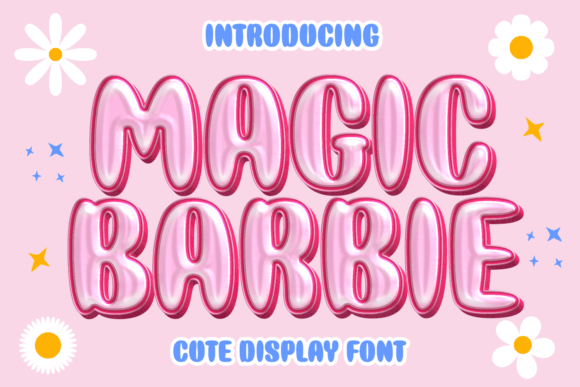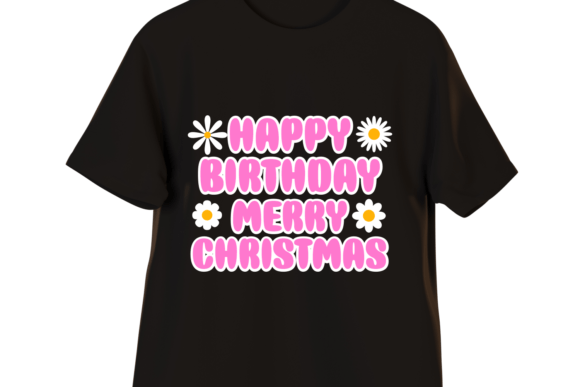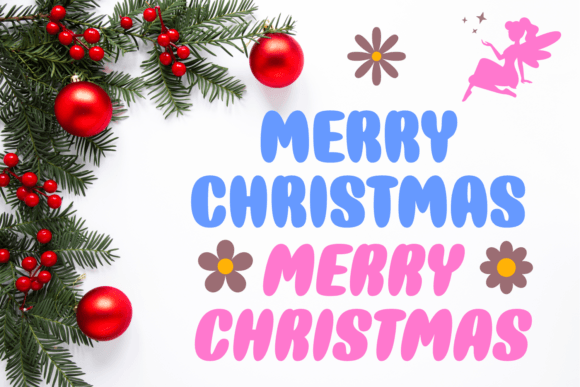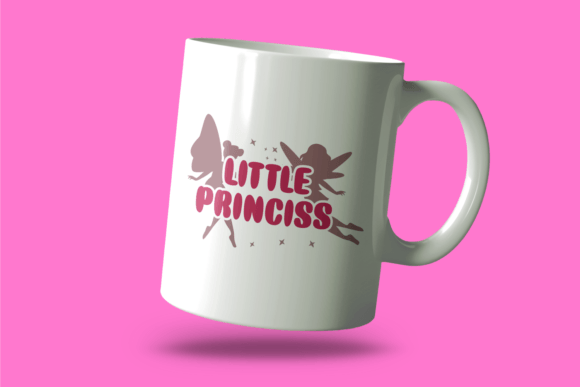
Magic Barbie Font: A Cute & Playful Display Font for Cricut
About the Magic Barbie Font
Meet Magic Barbie Font, a stunning font that brings a touch of elegance and professionalism to any design. Experience the versatility of the Magic Barbie font that embodies charm and playfulness. Perfect for a range of designs such as kids themes, retro designs, or wedding invites, these fonts exude a sense of comic relief and fun. Express affection with this font, ideal for Valentine’s greetings, Mother’s Day messages, or simply adding personal touch to your branding.
Magic Barbie Font’s playful energy makes it ideal for headlines, short-form text in posters, and branding for children’s products or playful businesses. It’s also a strong choice for packaging design where a fun, approachable aesthetic is desired. However, its decorative nature makes it unsuitable for body text or UI elements where readability is paramount. Long paragraphs set in this font would be difficult to read.
For optimal visual harmony, pair Magic Barbie with a clean sans-serif font like Helvetica Neue for contrast, or a softer, rounded sans-serif such as Open Sans for a more cohesive feel. A playful script font could also complement it in certain applications, adding another layer of whimsy.
The font’s overall personality is best described as cheerful and whimsical, with a retro flair. It’s perfectly suited for brands focused on joy, nostalgia, and a lighthearted approach.